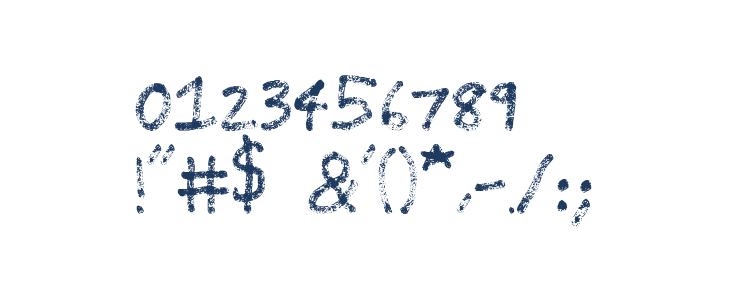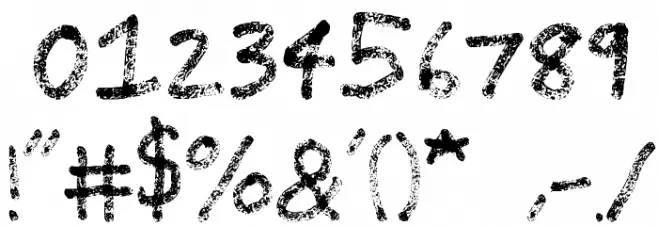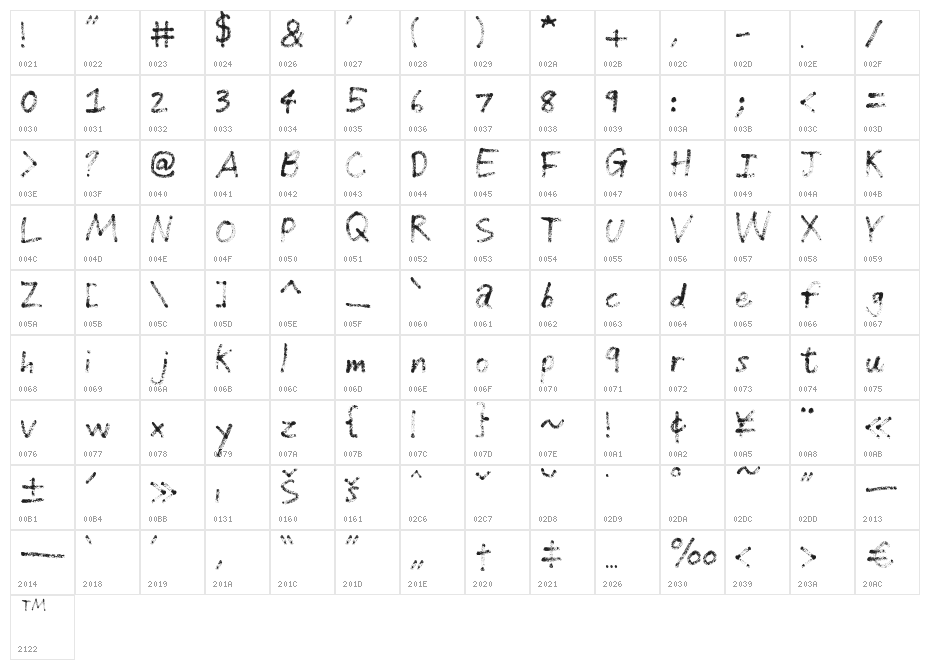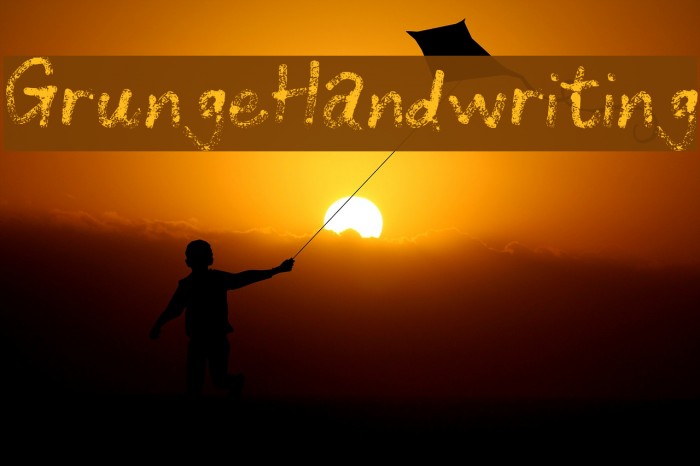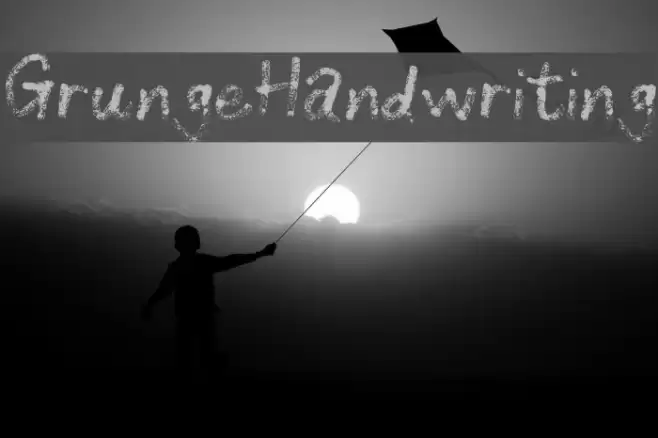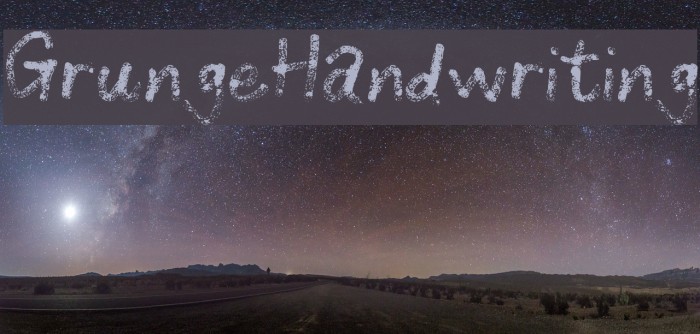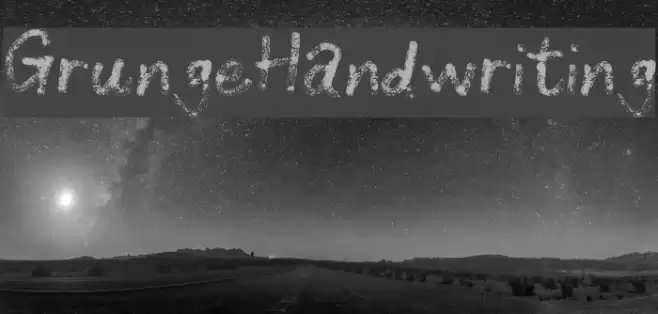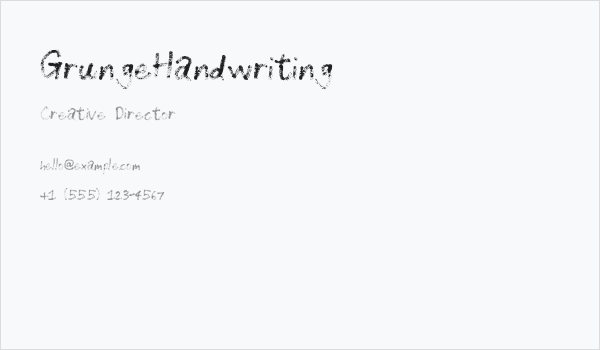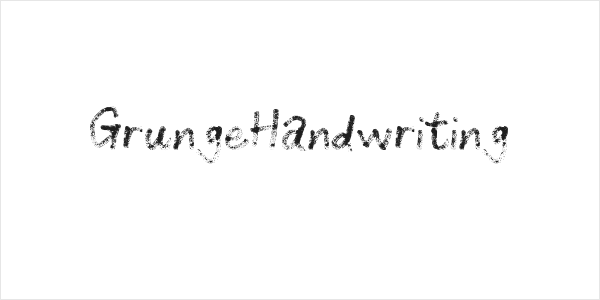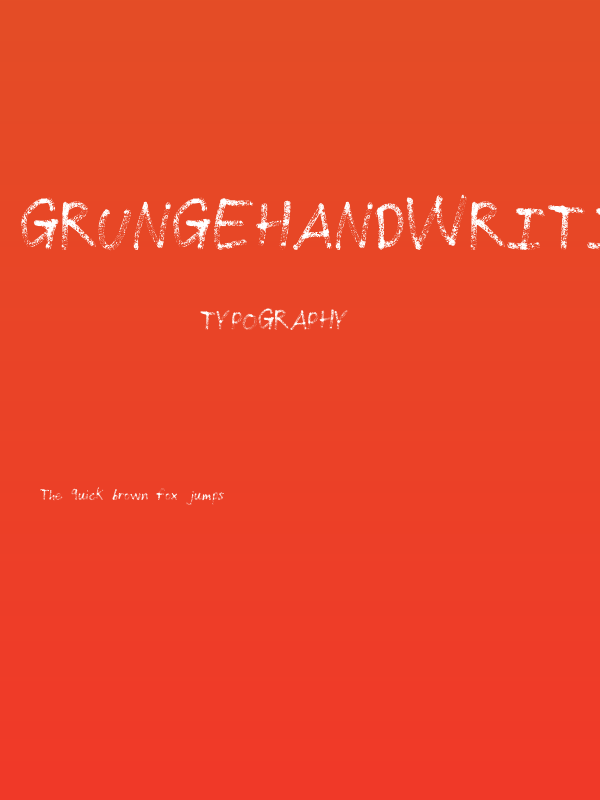
GrungeHandwriting Font
GrungeHandwriting Description
This font exudes a raw, edgy aesthetic with its grunge-inspired, handwritten style. Each character appears as if it has been sketched with a rough brush, featuring irregular edges and a distressed texture that adds to its authentic, hand-crafted feel. The uppercase and lowercase letters maintain a consistent style, while the numbers and special characters complement the overall design. This font's unique appearance makes it stand out, offering a sense of individuality and creativity. The uneven strokes and textured finish give it a dynamic and energetic vibe, perfect for projects that aim to convey a sense of rebellion or artistic flair.
| Overall Style | Grunge, Artistic |
| Proposed Projects | Ideal for album covers, posters, streetwear branding, and artistic projects that require a bold, unconventional look. |